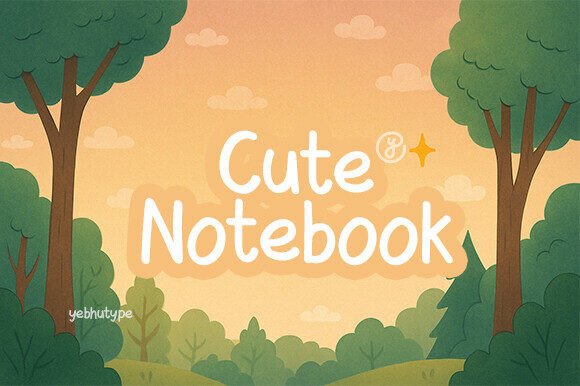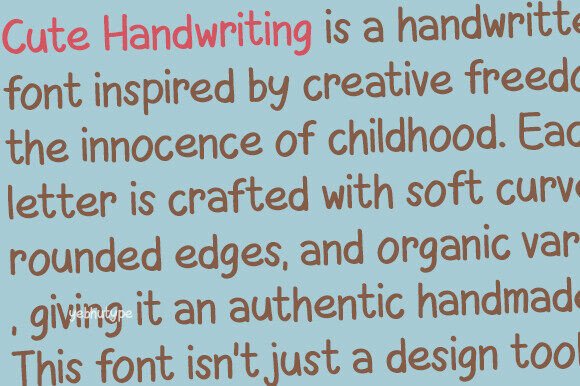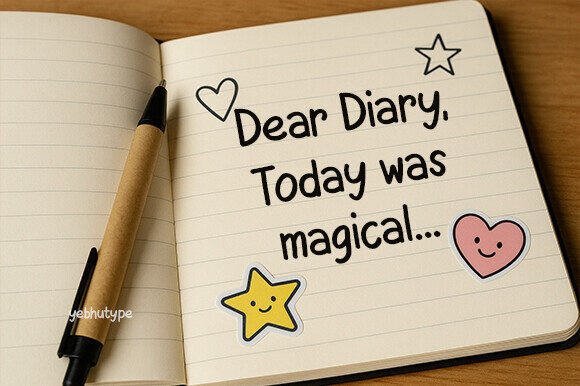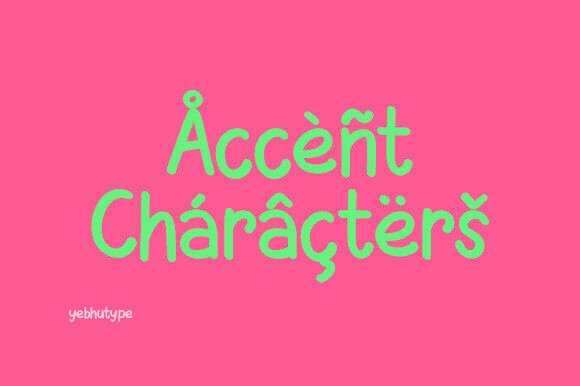
Cute Notebook Font
About the Cute Notebook Font
The Cute Notebook Font is here to transform your projects with its distinctive character and style. Introducing the Cute Notebook font—an embodiment of spontaneous creativity that extends a warm, handwritten hug across every creative endeavor. This delightful typeface, inspired by the whimsy of daydreams, doodles and boundless imagination, mirrors the joy and charm of a well-worn notebook page.
Cute Notebook isn’t just any font—it’s an authentic expression of creativity, radiating warmth and familiarity. This hand-rendered typeface, inspired by the impromptu sketches and innocent scribbles found in the gaps of a notebook page, delights in its blend of playful sincerity and candid authenticity. This font encapsulates nostalgia, acting as a charming conduit between childhood memories and the present moment. Whether it’s a project for children or tapping into your inner child, Cute Notebook presents a cherished, reminiscent touch that feels both reassuring and ever so imaginative.
Key Features:
📝 Genuine Hand-drawn Style:
Emulating the spontaneity of penmanship, Cute Notebook strikes a balance between perfect and imperfect, bringing a naturally inviting feel.
🧸 Soft, Rounded Glyphs:
With bundles of warmth, each letterform is like a gentle embrace—ideal for communicating a sense of welcoming friendliness.
🎨 Perfectly Imperfect:
Meticulous inconsistencies encompass the whole font—lending a personal and vivacious touch that separates Cute Notebook from the conventional.
📚 Versatile and Legible:
Despite its playful aura, Cute Notebook font remains highly readable across various sizes, GPU, suiting both body text and headlines.
🔤 Full Character Set:
Uppercase, lowercase, numerals, and important punctuation are included, providing complete typography solutions for a wide range of creative endeavors.
The Cute Notebook font thrives on imparting feelings of cheer, warmth, comfort, and sweetness. It portrays the nostalgia of childhood memories mixed with joyful and creative hours spent day-dreaming or sketching— all of which make text communication a delightful experience. Whether you desire to evoke joy, communicate well, or add a whimsical touch, Cute Notebook precipitates a positive emotion that’s almost irresistible.
Ideal Applications:
📘 Children’s Learning Materials & Books: With the Cute Notebook’s friendly allure, make learning and reading a fun journey.
🎉 Party Invitations & Greeting Cards: From baby showers to birthdays, Cute Notebook adds a personal touch that makes the message all the more intimate.
👨‍👩‍👧 Family-centric Branding: Whether it’s a toy brand or a parenting blog, Cute Notebook creates an affectionate, believable communication with audiences.
📱 Content Creation & Social Media Graphics: From quote graphics to creative posts, create an engaging, warm digital presence.
🖌️ Keepsakes & DIY Projects: For designing personal belongings like journals, scrapbooks or stickers, Cute Notebook adds a magical allure.
Why Cute Notebook?
In a world observing polished perfection, Cute Notebook brings back the appreciation for beautiful imperfections and unique creativity. It’s a font that’s truly full of heart, creating a humanised message in whatever you design. Because occasionally, the utmost powerful designs are found in the most honest, simple places.
Let Cute Notebook be your design’s voice. Every word feels like a cozy message from an old friend, inspiring artwork that encourages smiles, memories, and wide-eyed wonder. Turn your creative stories into vivid realities with the Cute Notebook font—a typeface as sweet, lovable, and enchanting as the doodles in your best-loved notebook. Cute Notebook is more than a font—it’s a feeling of joy and wonder wrapped in a bundle of love.